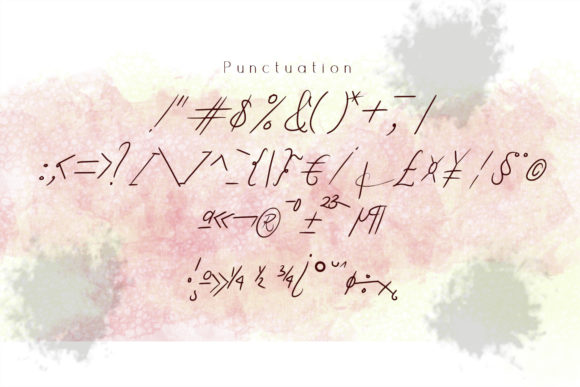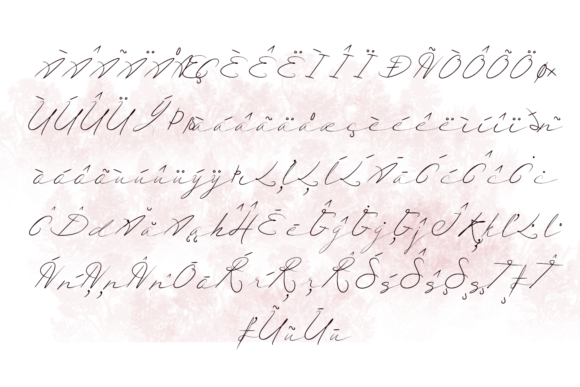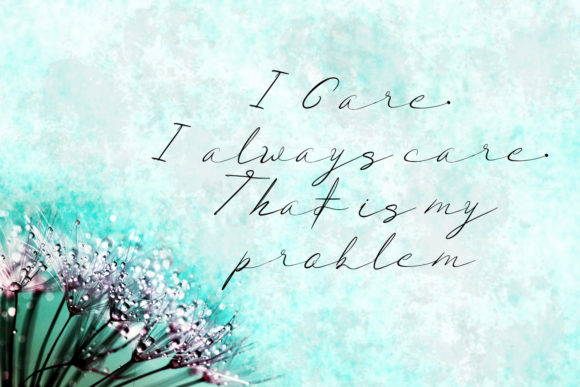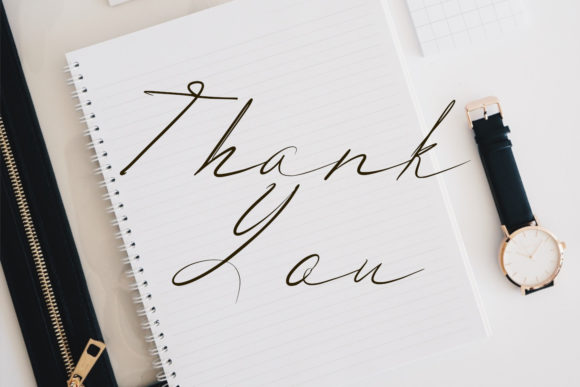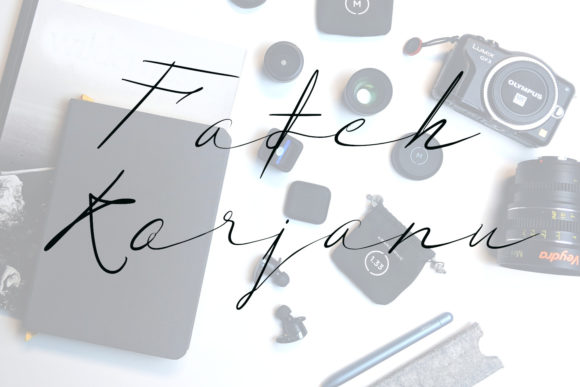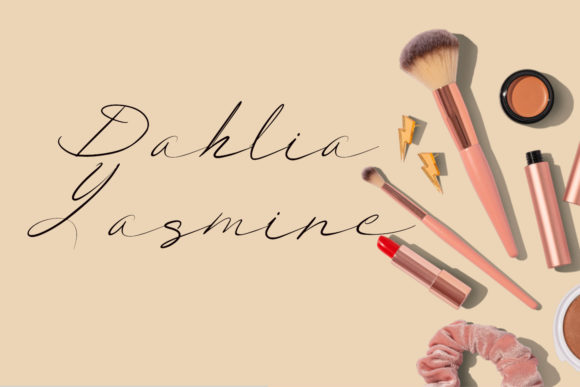
Vibrant Font
About Vibrant Font
Vibrant is a flowing handwritten font, described by an elegant touch. Fall in love with its incredibly distinct and timeless style and use it to create spectacular designs. Use this gorgeous and unique handwritten font to bring any DIY project to life!